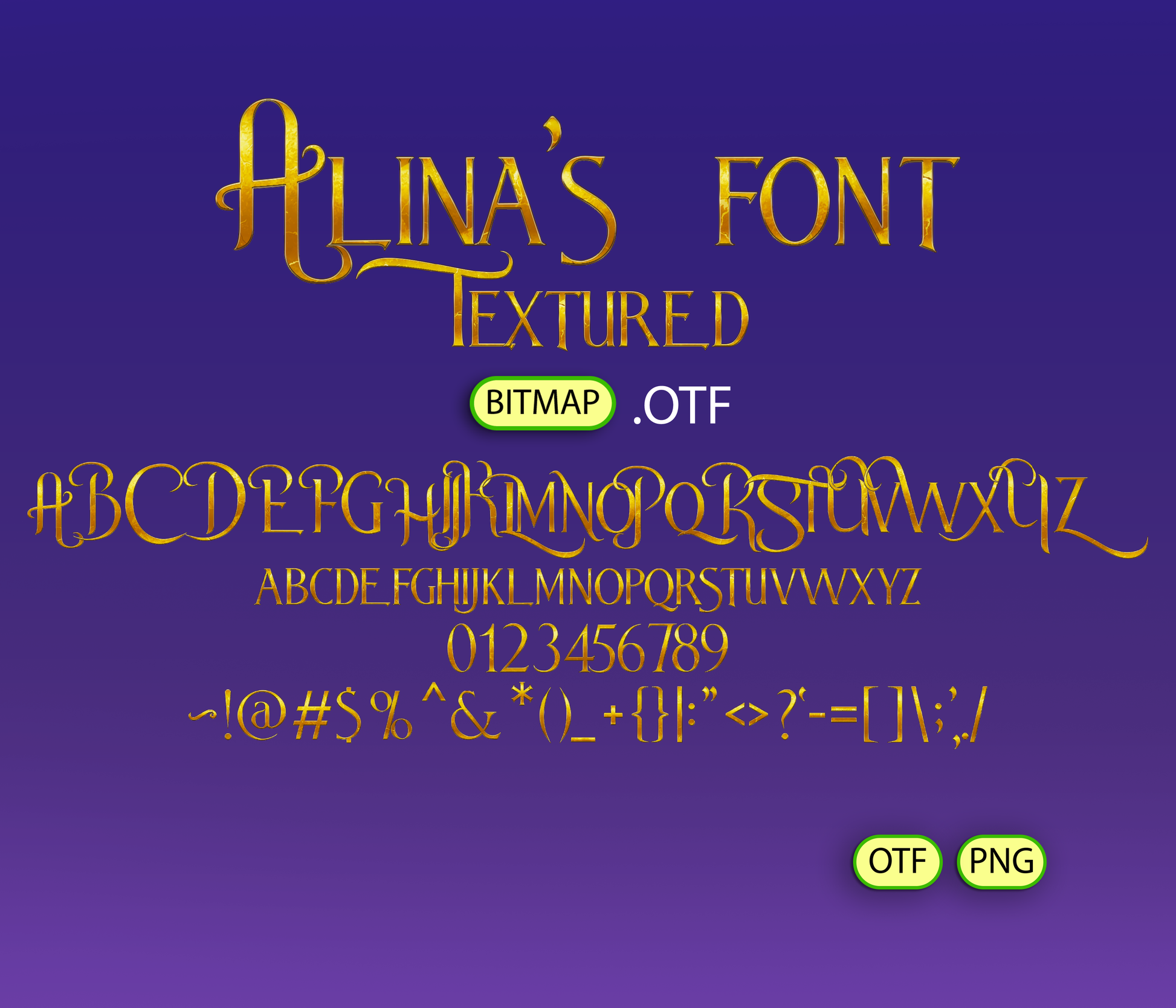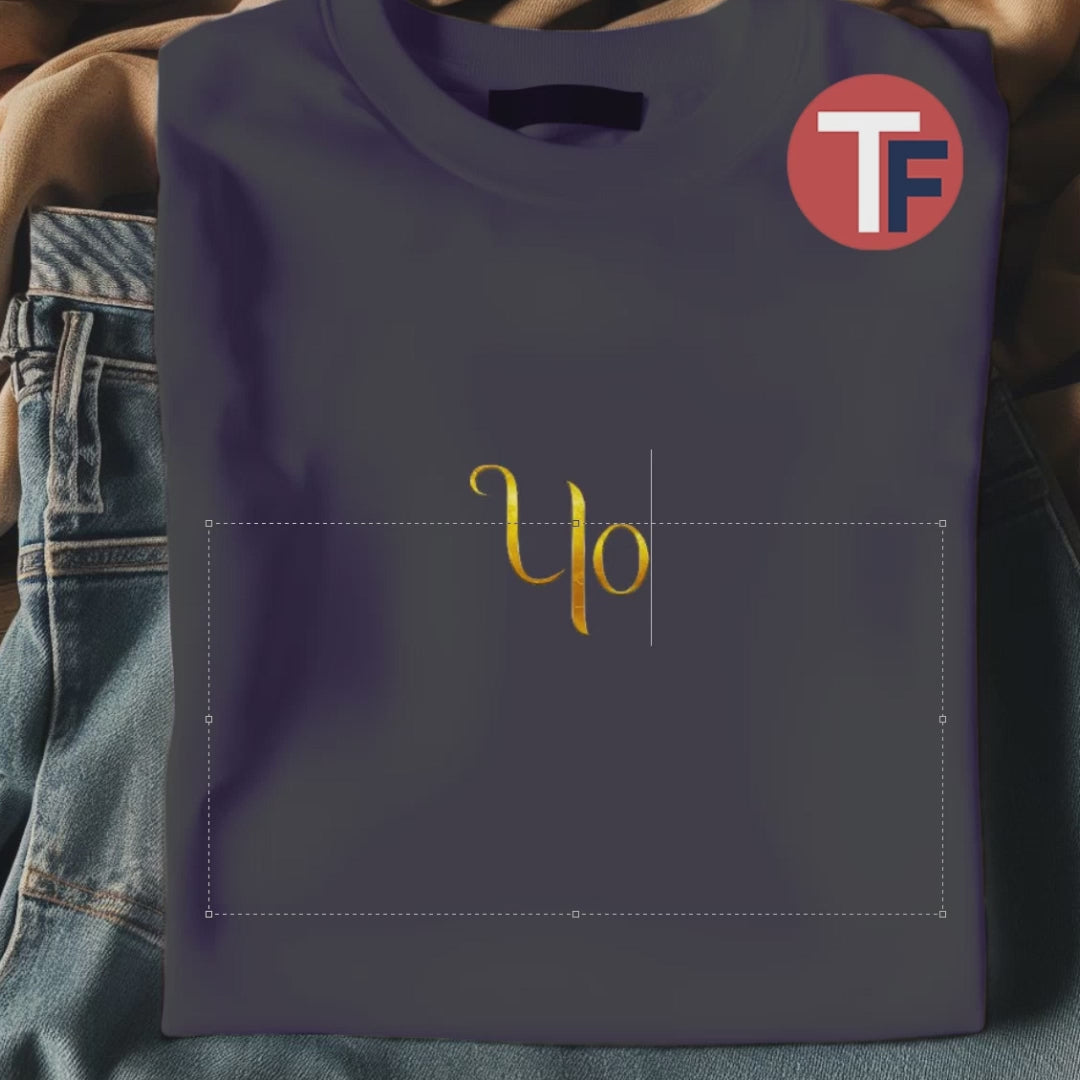
Enchant Your Designs with the Fairy Tale Romance-Inspired Font
Step into a world of romance and magic with our Fairy Tale Romance-inspired font. Perfect for fans of classic fairy tales, event planners, and designers, this font captures the timeless elegance and enchanting spirit of beloved stories. Whether creating event invitations, themed merchandise, or digital content, our Fairy Tale Romance font ensures your projects resonate with the charm and splendor of an enchanted castle.
Our Fairy Tale Romance-inspired font features graceful, flowing lines and ornate details that reflect a blend of sophistication and whimsy. This versatile font is ideal for a variety of applications:
- Event Invitations: Perfect for creating stunning invites for weddings, gala events, or themed parties.
- Merchandise Design: Ideal for designing t-shirts, posters, and accessories that capture the magic of fairy tales.
- Digital Media: Enhance websites, blogs, and social media content with elegant headers and graphics.
- Educational Materials: Use in presentations, worksheets, and educational content focused on literature, fairy tales, or storytelling.
- Personal Projects: Add a touch of enchantment to scrapbooking, DIY crafts, or home decor inspired by magical adventures.
To ensure maximum usability and flexibility, our Fairy Tale Romance-inspired font includes both textured and non-textured variants. The non-textured version ensures compatibility with all types of software, including Canva, allowing users of all skill levels to seamlessly incorporate the font into their designs, enhancing accessibility and ease of use across various digital and print platforms.
Many people seek out a Fairy Tale Romance Font generator online to mimic this look. Steer clear! No font generator can match the quality of this Fairy Tale Romance Font, which comes in two versatile versions: a textured colored font and a simple font. This is particularly beneficial if you plan to use it with a cutting machine.
Our Fairy Tale Romance font not only pays tribute to enchanting tales but also empowers you to infuse your designs with their romantic and magical spirit. Whether crafting promotional materials, designing unique merchandise, or adding a touch of fairy tale elegance to personal projects, this font allows you to communicate with the beauty and wonder that define classic stories. Ready to transform your creative projects with a touch of enchantment? This font is your key to unlocking a world of timeless and captivating design.